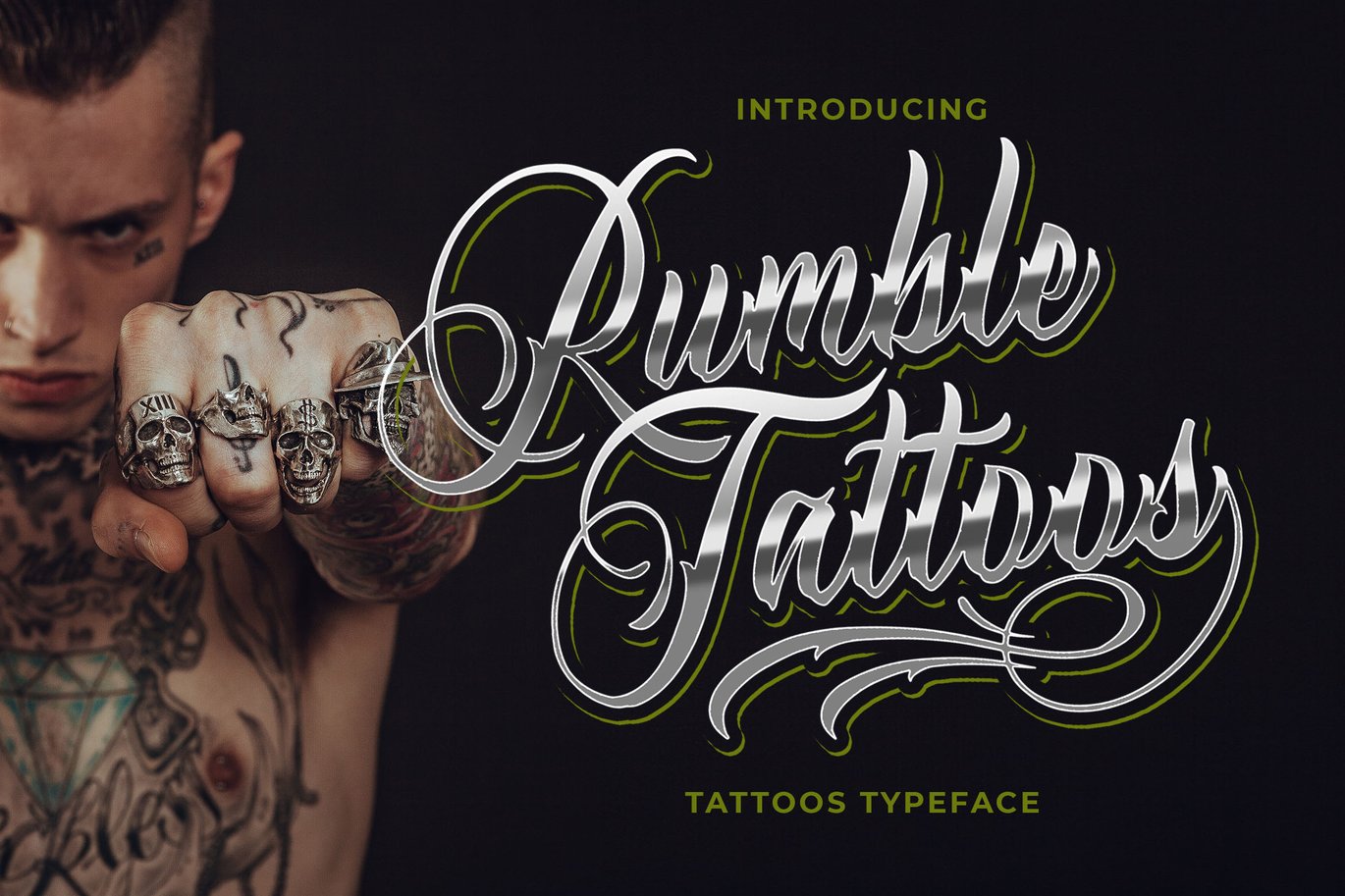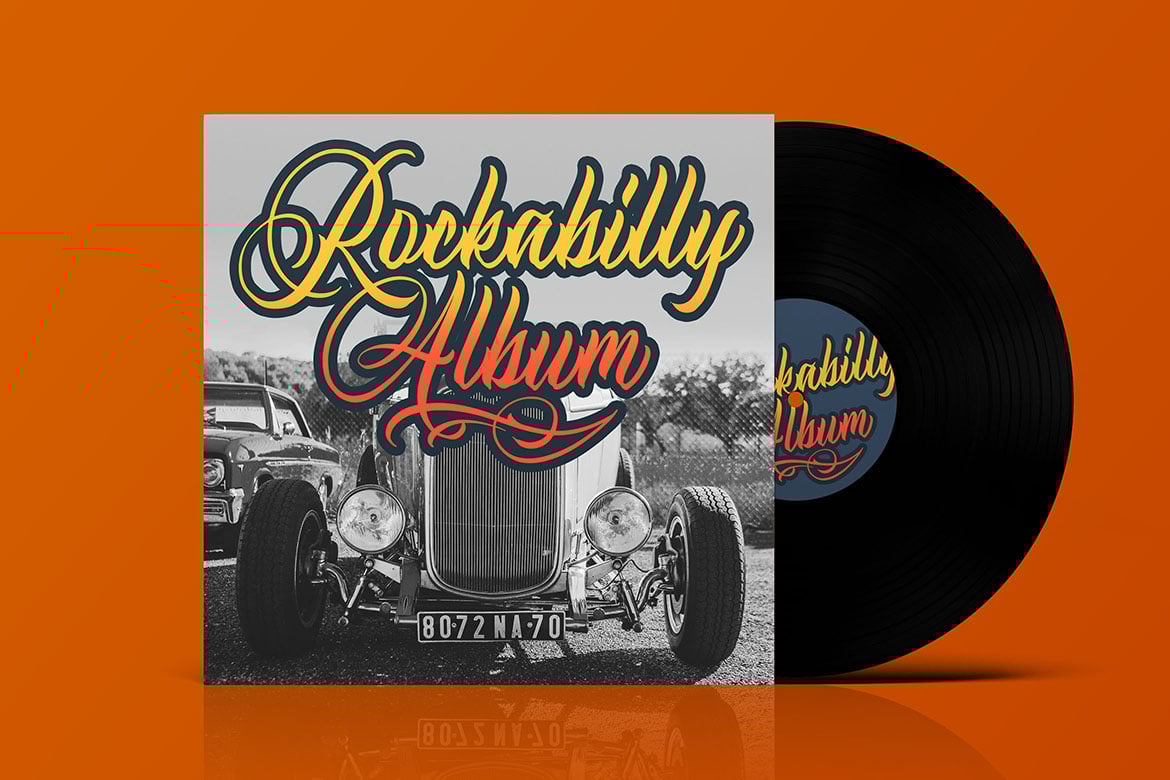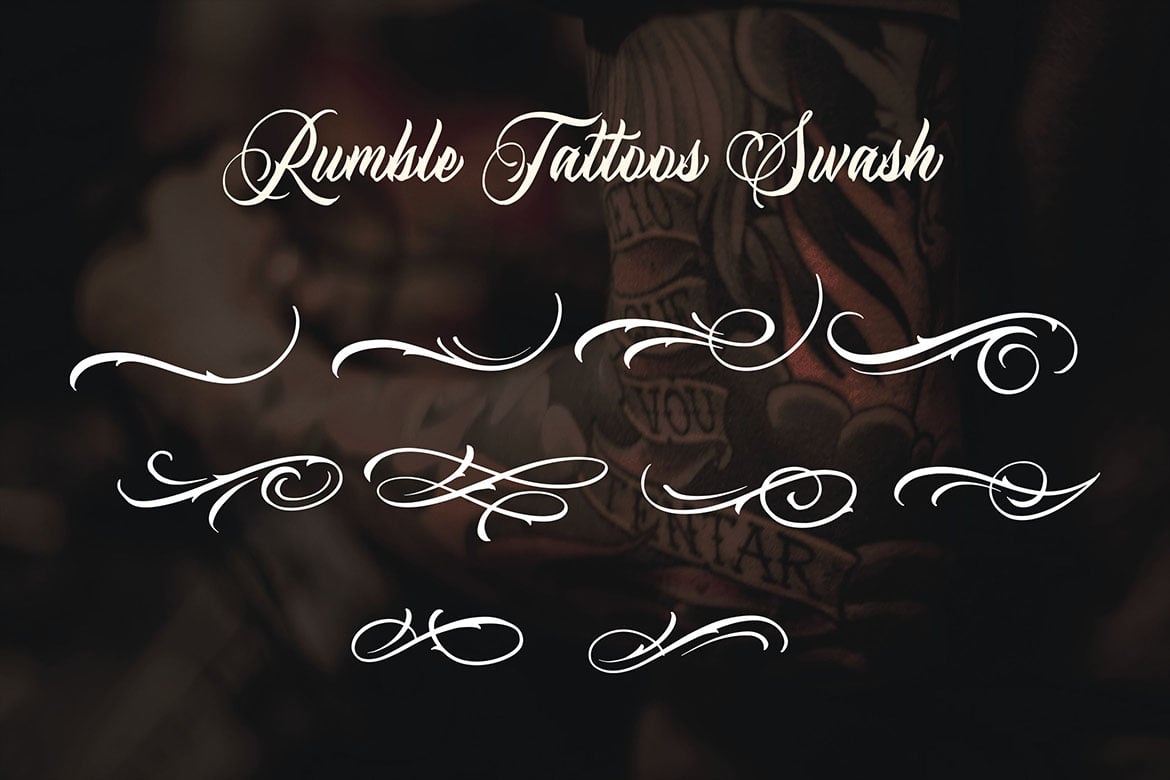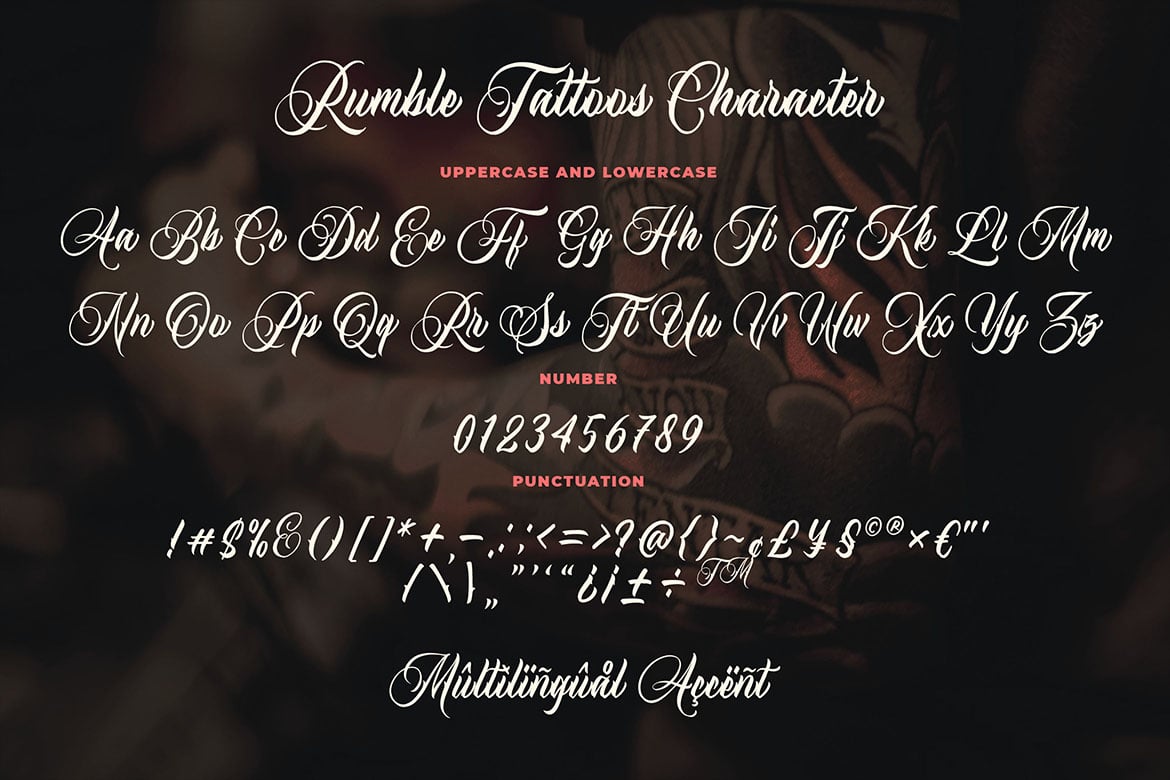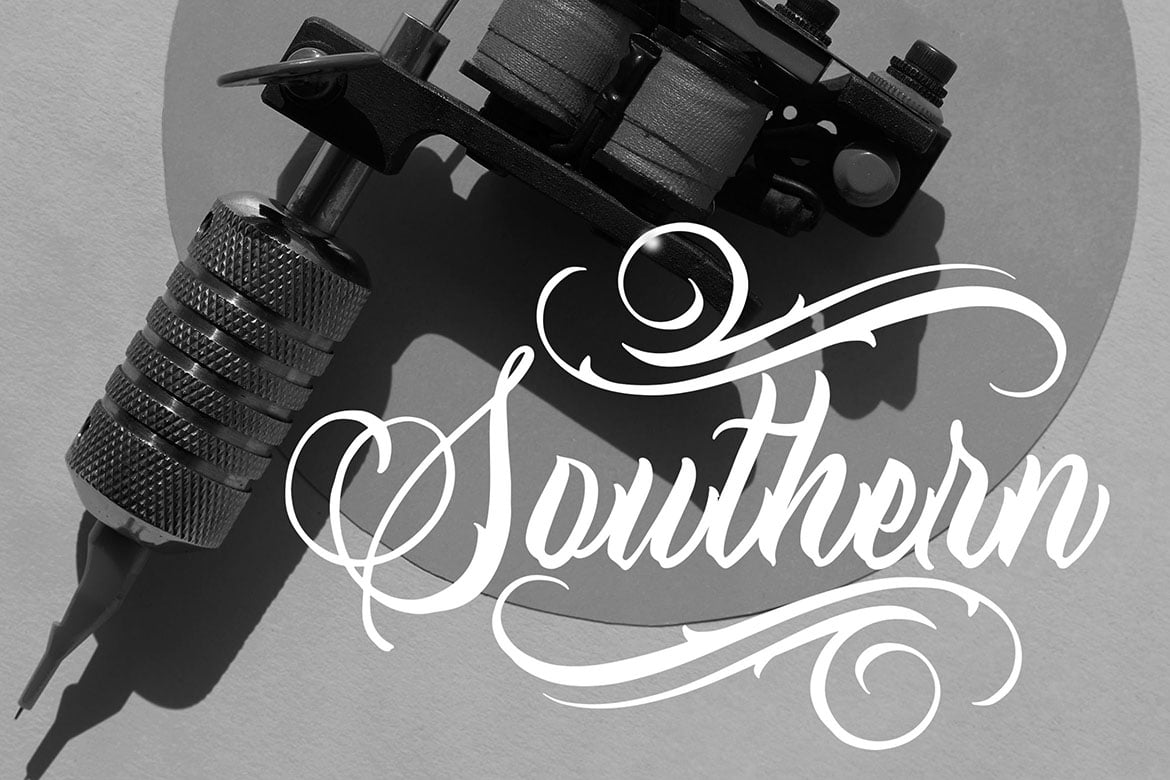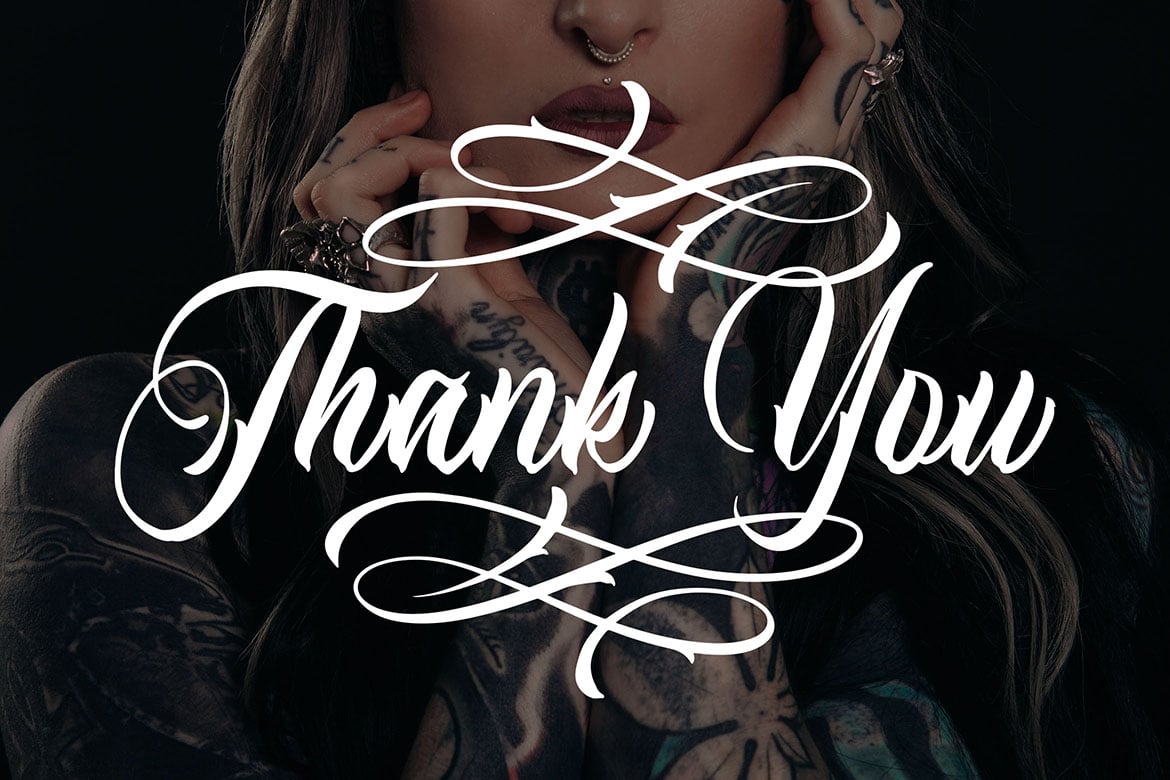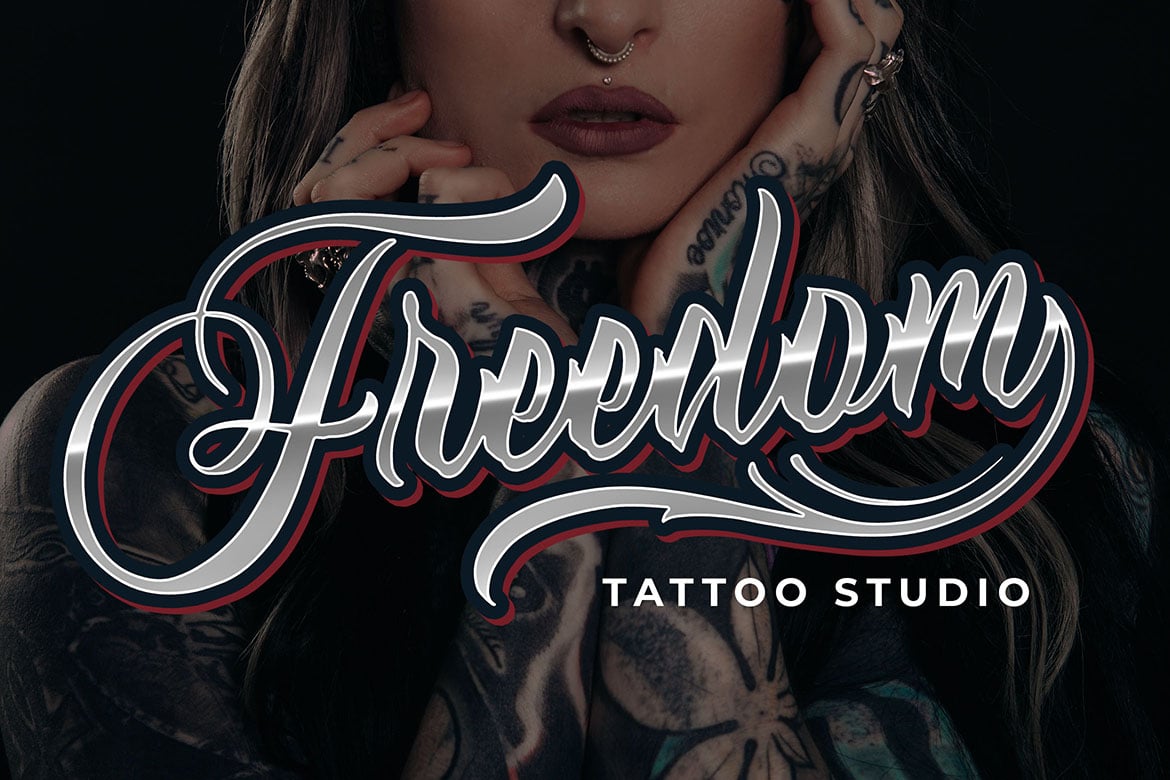
Rumble Tattoos – Tattoos Typeface
Introducing a new Sricpt typeface called Rumble Tattoos Typeface. Rumble Tattoos good for logotype tattoos, poster tattoos, Merchandise Tattoos.
MULTILINGUAL ACCENT :
- ŽžŠŒšŸÀÁÂÃÄÅÆÇÈÉÊËÌÍÎÏÐÑÒÓÔÕÖØÙÚÛÜÝßàáâãäåæçèéêëìíîïñòóôõöøùúûüýÿ